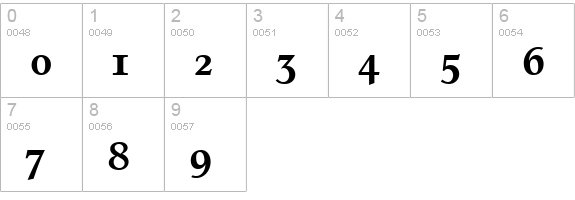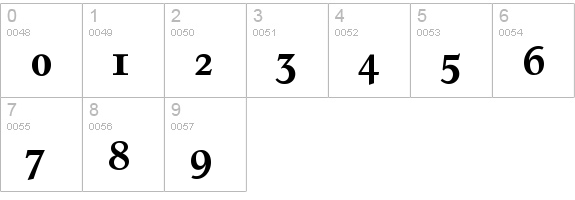
Concorde BE Medium Small Caps & Oldstyle Figures Font Details
Concorde BE Medium Small Caps & Oldstyle Figures is a balanced, medium-weight variant in the Concorde typeface family \xE2\x80\x94 well suited to sub-headlines, navigation, and balanced editorial work.
Concorde BE Medium Small Caps & Oldstyle Figures font is a versatile and sophisticated typeface that exudes elegance and class. With its unique combination of small caps and oldstyle figures, this font is perfect for adding a touch of vintage charm to any design project. The medium weight gives it a balanced and professional look, making it suitable for both body text and headlines. What sets Concorde BE apart is its timeless appeal and attention to detail in every character. The small caps add a touch of refinement, while the oldstyle figures bring a sense of tradition and authenticity. Whether you're designing a wedding invitation, a branding project, or a magazine layout, Concorde BE is sure to elevate your work to the next level. The best part? Concorde BE Medium Small Caps & Oldstyle Figures font is available for free download at FontsMarket.com. So go ahead and give your designs that extra touch of sophistication with this beautiful and versatile typeface.